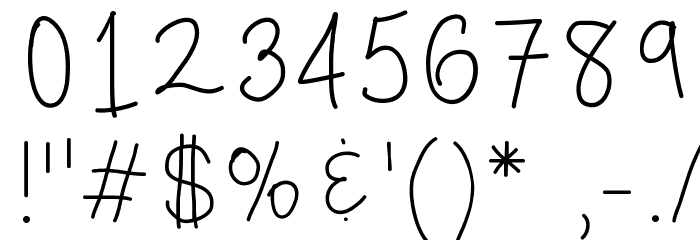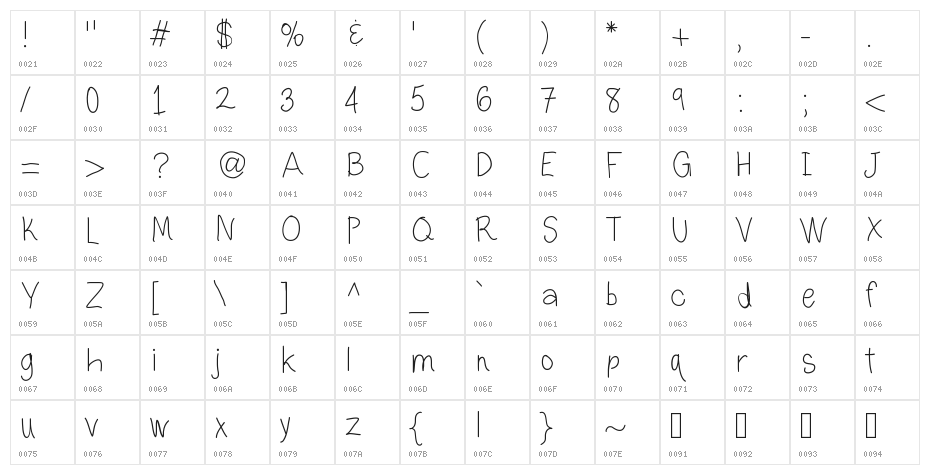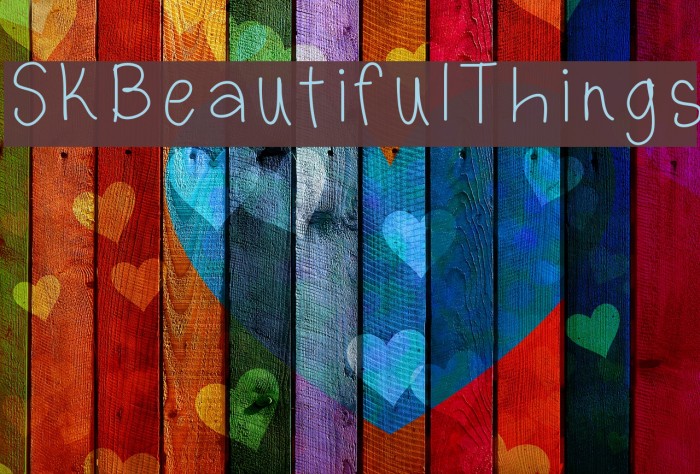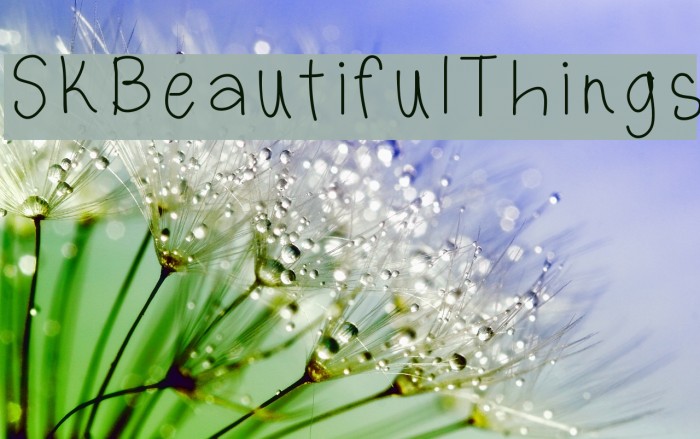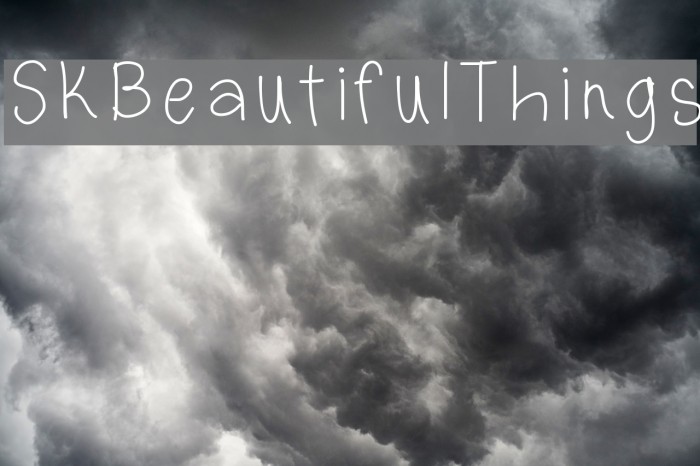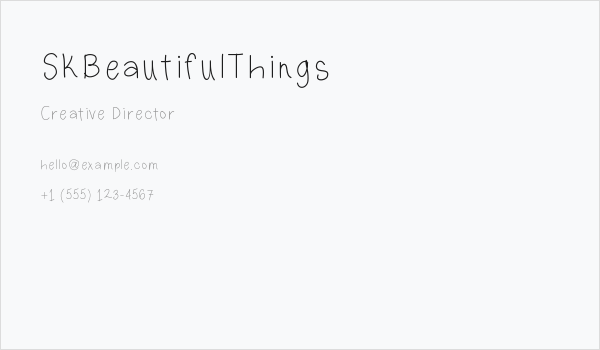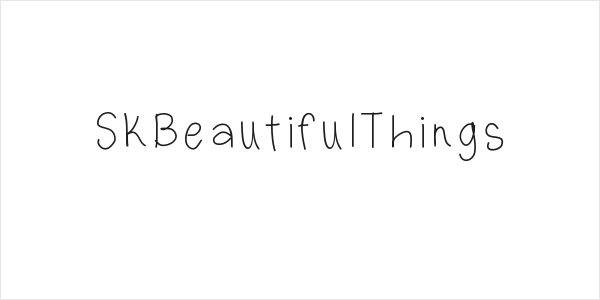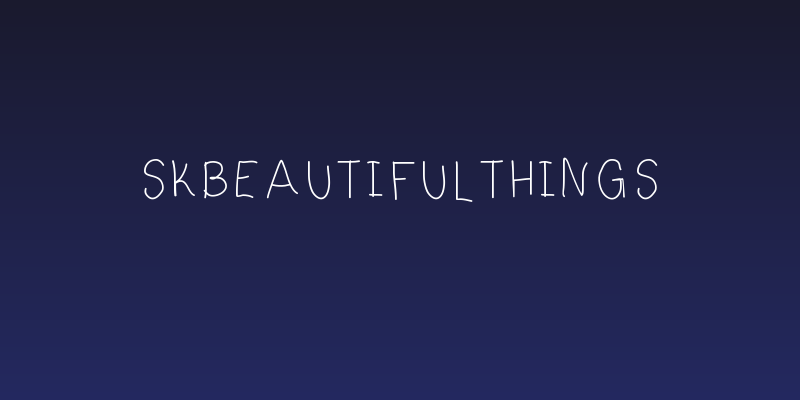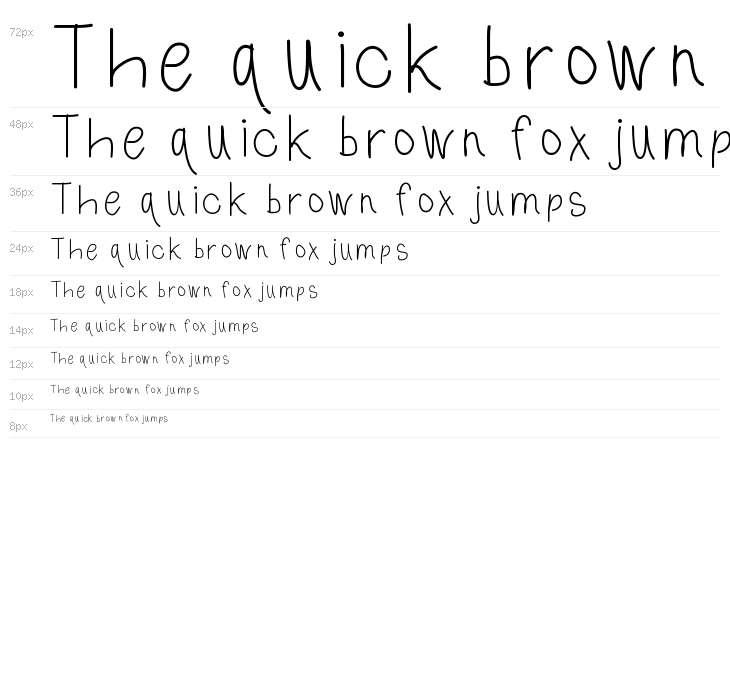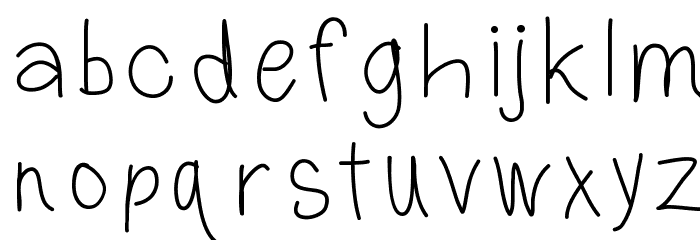
SKBeautifulThings Font
SKBeautifulThings Description
This font features a playful and handwritten style, characterized by its irregular and organic strokes that mimic the natural flow of handwriting. The letters are slightly tilted and vary in size, adding to the casual and informal appearance. The uppercase and lowercase letters maintain a consistent style, with rounded edges and a friendly, approachable feel. The numerals and special characters follow the same design principles, ensuring a cohesive look across all glyphs. This font is ideal for projects that require a personal touch, such as invitations, greeting cards, or creative branding.
| Proposed Projects | Ideal for invitations, greeting cards, personal branding, and creative projects. |